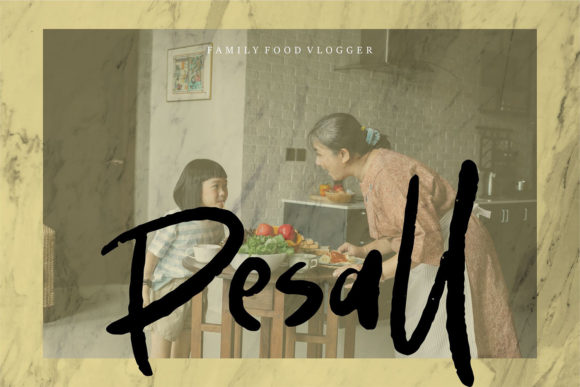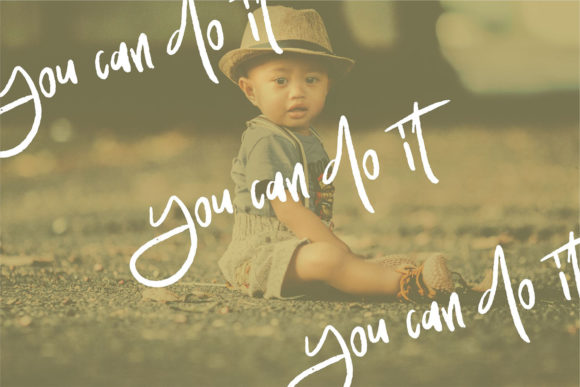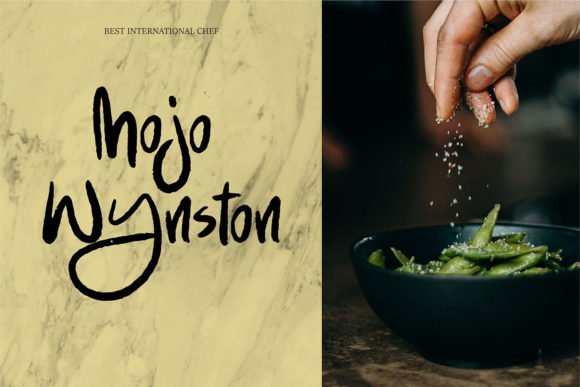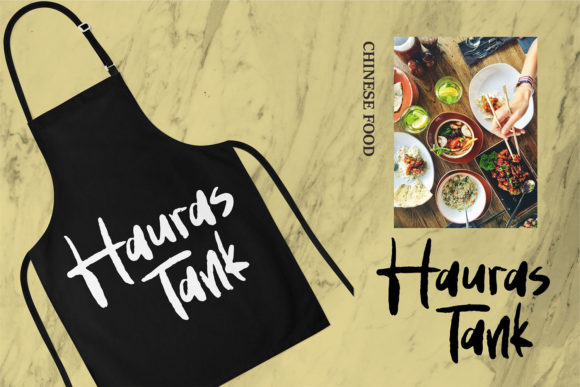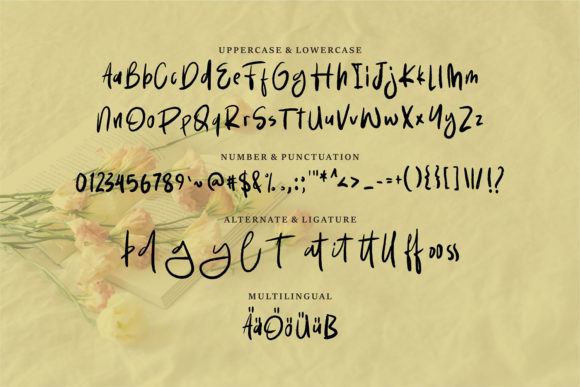
Budool Font
About Budool Font
Budool is a simple brushed handwritten font. No matter the topic, this font will be an incredibly asset to your fonts’ library, as it has the potential to elevate any creation.